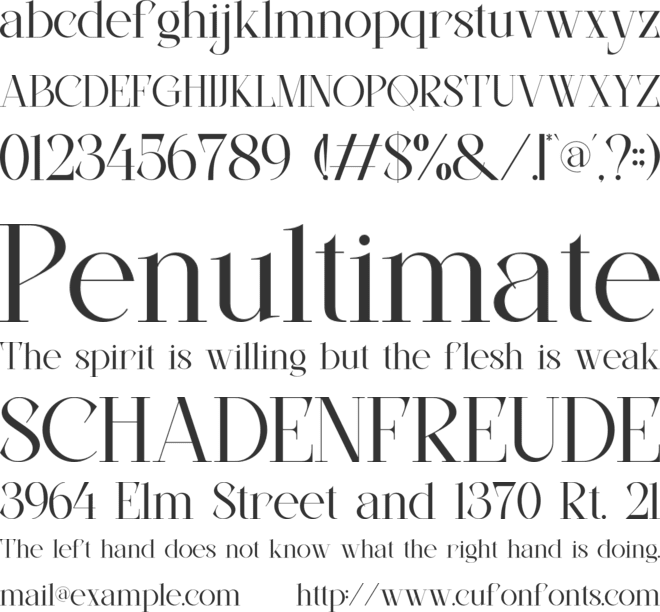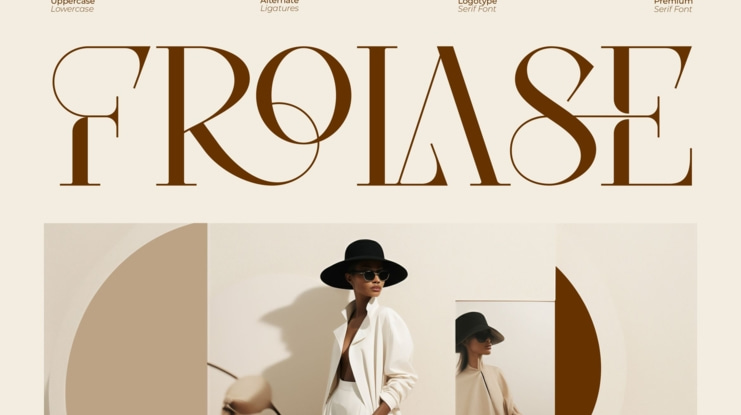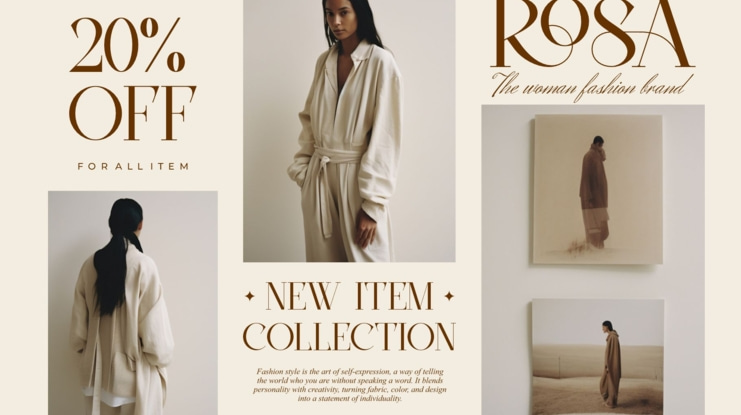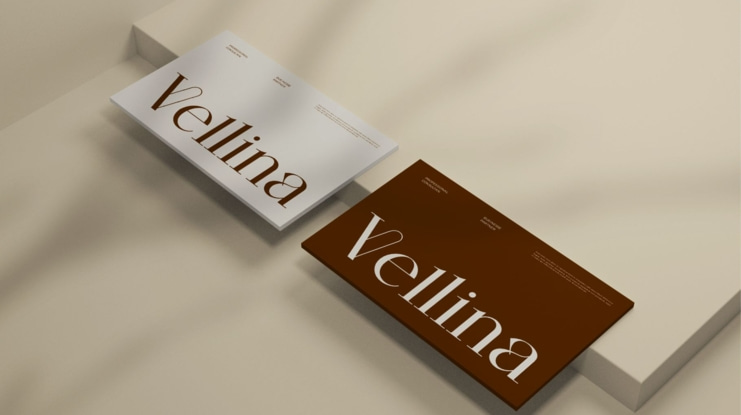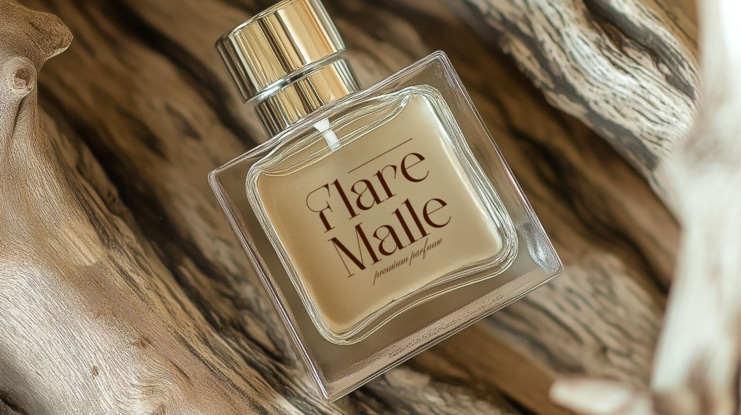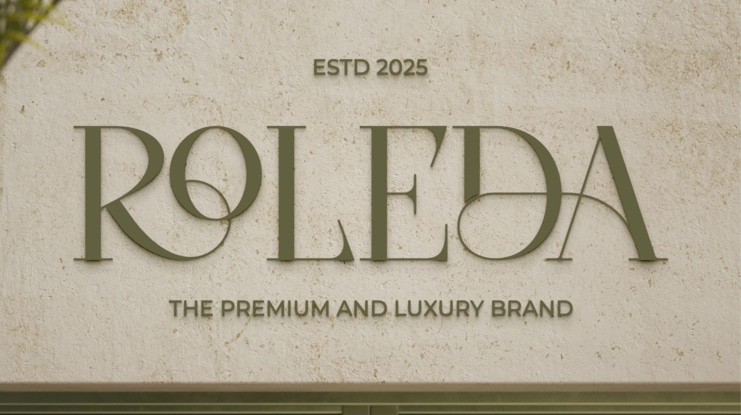
Frolase Font
Frolase Serif is a modern and minimalist font type for all branding and logo designs. This modern and minimalist Serif font has a beautiful character. This font is suitable for invitation card designs, cool logos, movie titles, movie names, business cards, book titles, brand names, and various other designs. Frolase Serif is a smooth serif font that exudes sophistication and the moment. Its stylish ligatures make this font a perfect partner for any project.
FEATURE :
- Ligature
- Uppercase and lowercase
- Numbering and Punctuation